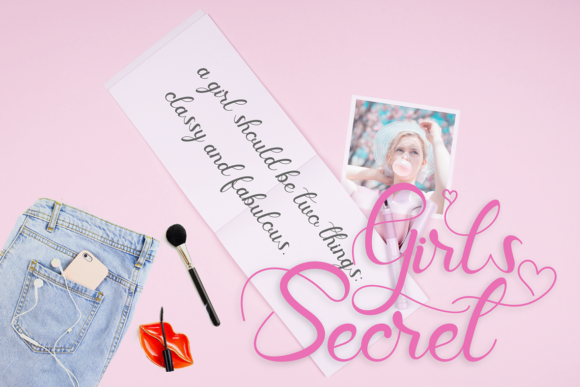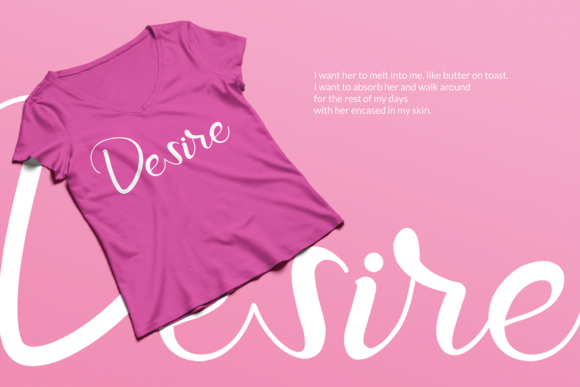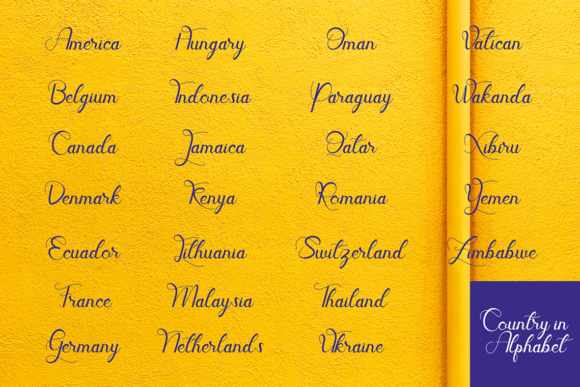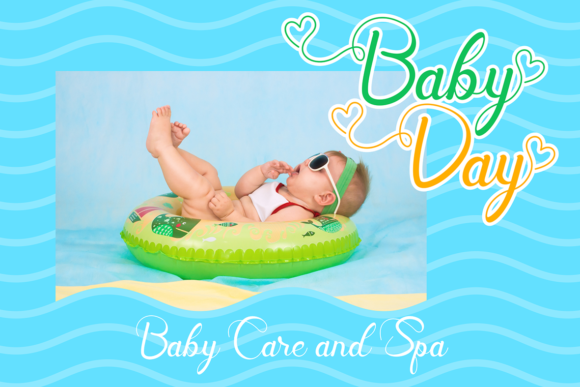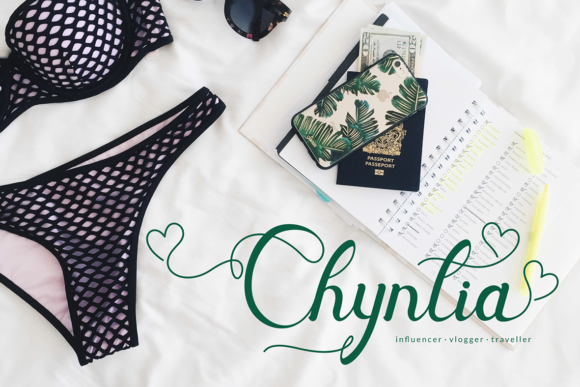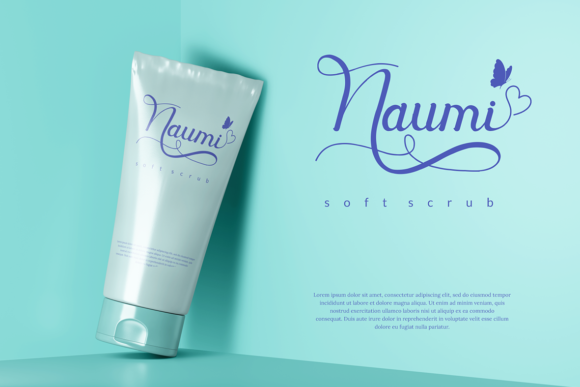
Unleashing Your Creative Potential with Hillary Diary Font
Have you ever stared at a blank page, feeling like the perfect design is just out of reach? The blank canvas can be intimidating, but what if you had the right tools to bring your vision to life? This is where the magic happens – and for designers, the right font can be the spark that ignites creativity.
Enter Hillary Diary Font, a modern script font that’s perfect for a variety of projects. Its exciting curves and playful charm make it an ideal choice for designers looking to add a touch of whimsy to their work. Whether you’re creating a brand identity, designing a website, or crafting a marketing campaign, Hillary Diary Font is sure to inspire.
Hillary Diary Font Key Features
- Font Style: Hillary Diary is a handwritten, script font.
- Unique Characteristics: Hillary Diary features a unique, cursive style with subtle variations in letterforms to create a natural, handwritten feel.
Designer Review: Hillary Diary Font
I recently had the chance to work with the Hillary Diary Font, and here’s my honest take on it.
- The Hillary Diary Font has a unique, handwritten feel that can add a personal touch to any design project.
- The font’s varied line widths and letterforms create a sense of movement and energy, making it perfect for titles and headings.
- The font family includes a range of weights and styles, giving designers plenty of flexibility to customize their designs.
- The font may be difficult to read at smaller sizes due to its irregular letterforms and varying line widths.
- The font’s handwritten feel can sometimes come across as inconsistent or amateurish, particularly in body text.
- The font family is relatively small, with only a few weights and styles available.
Overall, the Hillary Diary Font is a great choice for designers looking to add a touch of personality to their projects. While it has some limitations, its unique feel and varied line widths make it a great option for titles, headings, and other design elements where a handwritten feel is desired.
The Hillary Diary Font is ideal for:
- Personalized journals and diaries
Tip: Experiment with different font sizes and styles to create a unique and memorable design.
Alternatives to Hillary Diary Font for Designers
Playfair Display is an elegant, luxurious serif font ideal for use in high-end branding, invitations, and magazine covers. It features intricate details and a classic feel. When to use: Luxury brands, weddings, and high-end events. Compared to Hillary Diary Font, Playfair Display has a more refined and sophisticated appearance, making it suitable for more formal designs.
Cambria
Cambria is a modern serif font designed for readability. It features a clean and elegant appearance, making it suitable for use in body text, articles, and academic papers. When to use: Academic papers, articles, and websites requiring a clean and readable font. Compared to Hillary Diary Font, Cambria has a more minimalist and neutral appearance, making it easier to read in large blocks of text.
Didot is a classic serif font with a luxurious and elegant appearance. It features a high level of detail and sophistication, making it suitable for use in high-end branding, fashion, and luxury goods. When to use: Luxury brands, fashion, and high-end events. Compared to Hillary Diary Font, Didot has a more refined and sophisticated appearance, making it suitable for more formal designs.
Georgia is a serif font designed for readability on screens. It features a clear and clean appearance, making it suitable for use in body text, articles, and websites. When to use: Websites, articles, and digital content requiring a clear and readable font. Compared to Hillary Diary Font, Georgia has a more minimalist and neutral appearance, making it easier to read in large blocks of text.